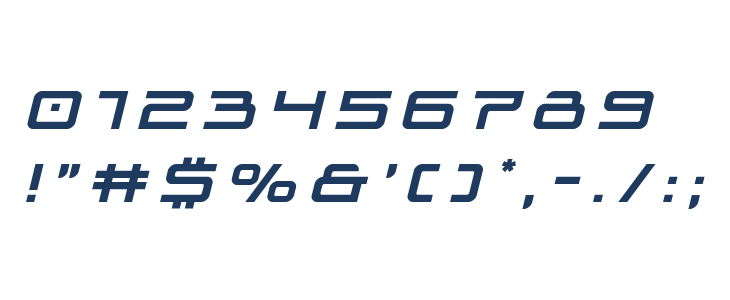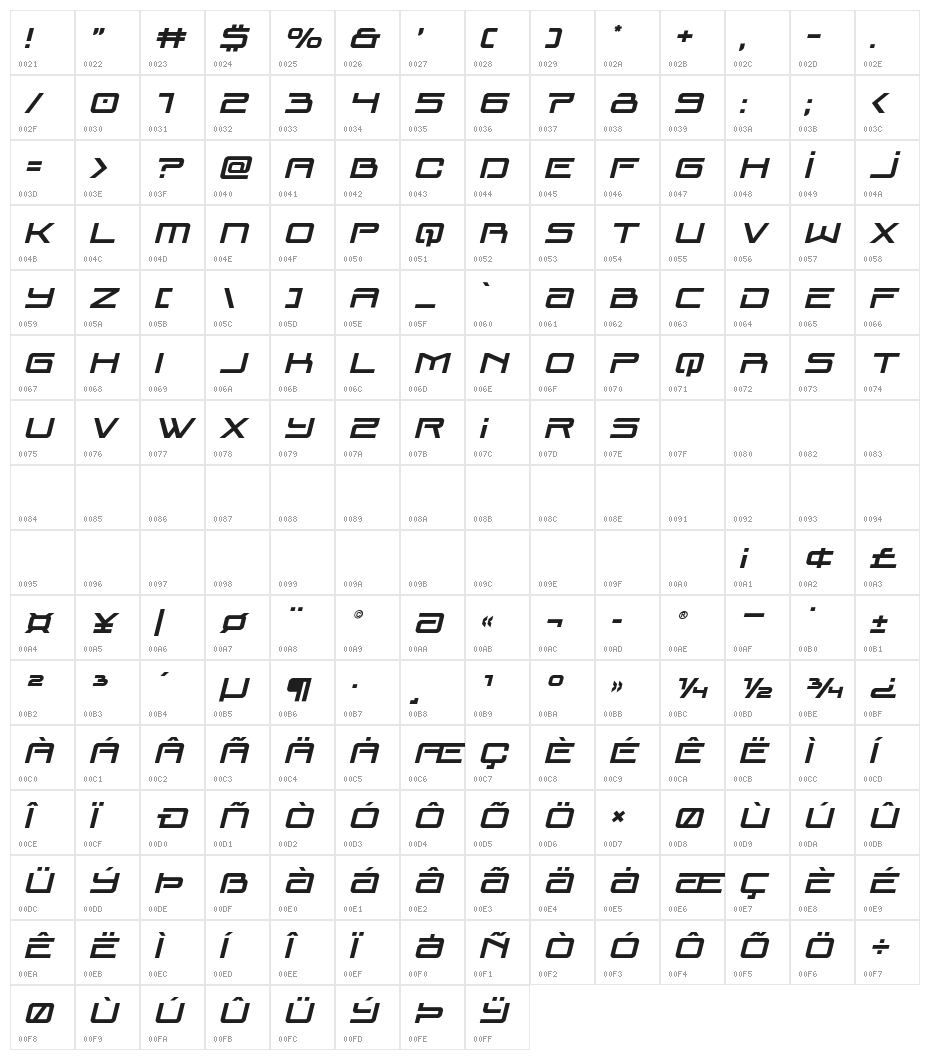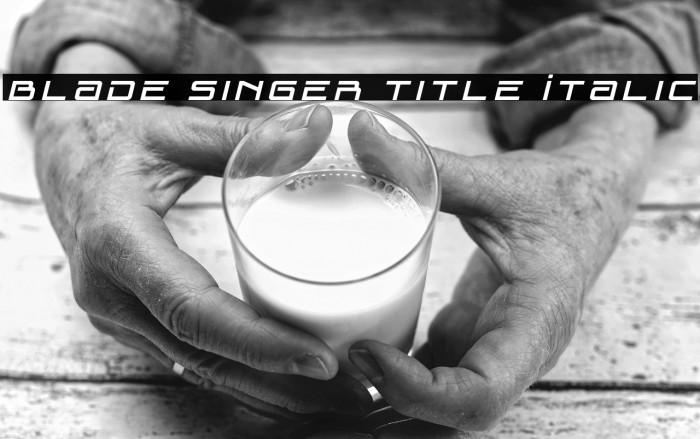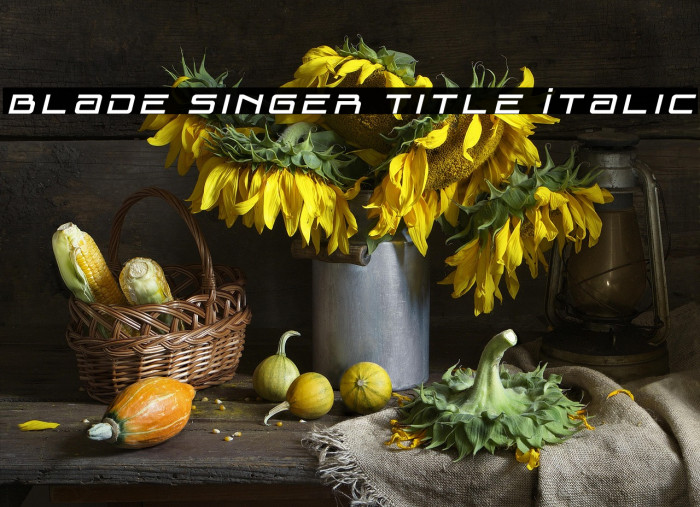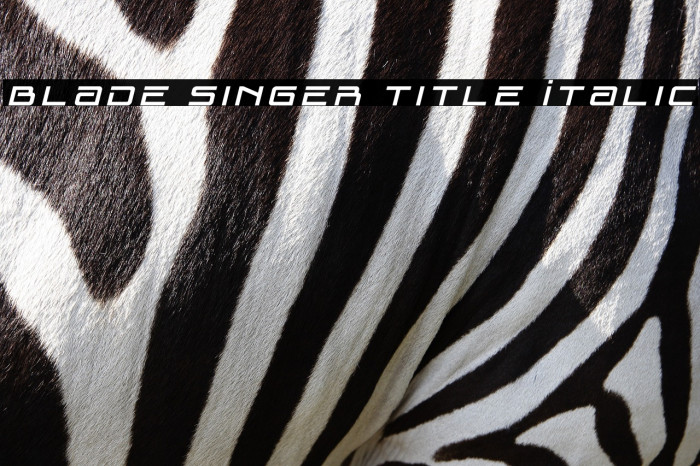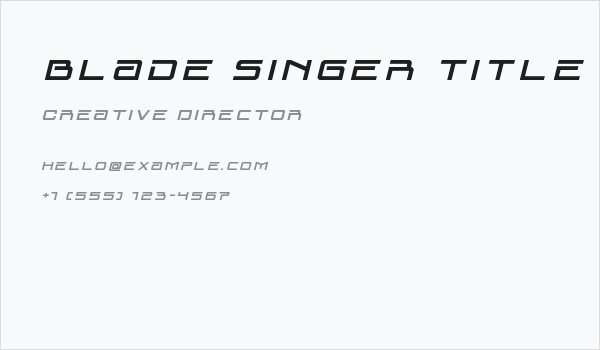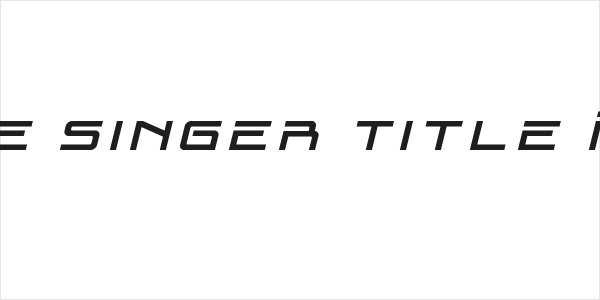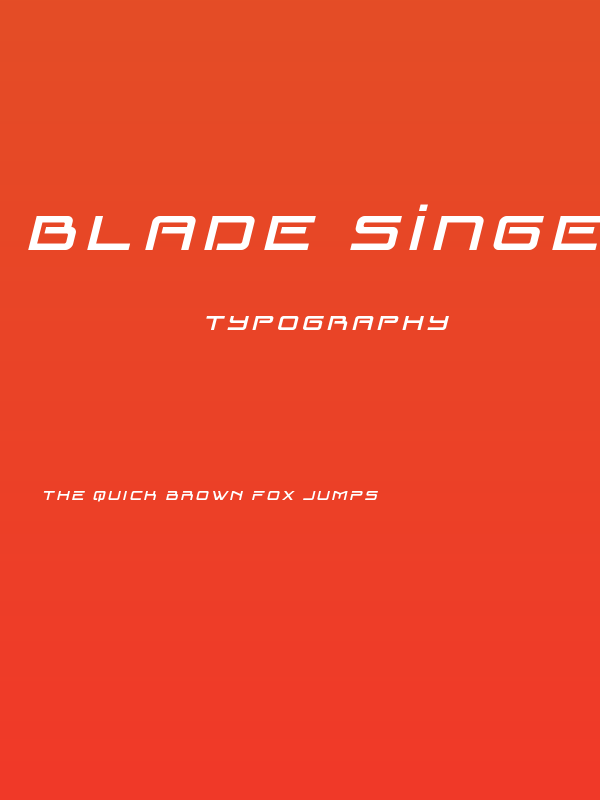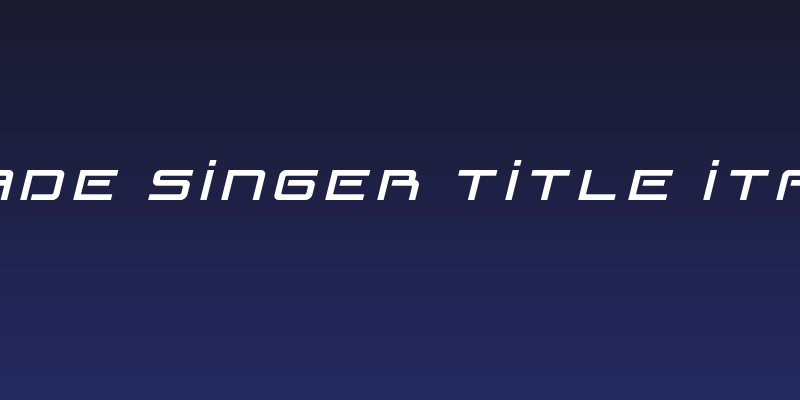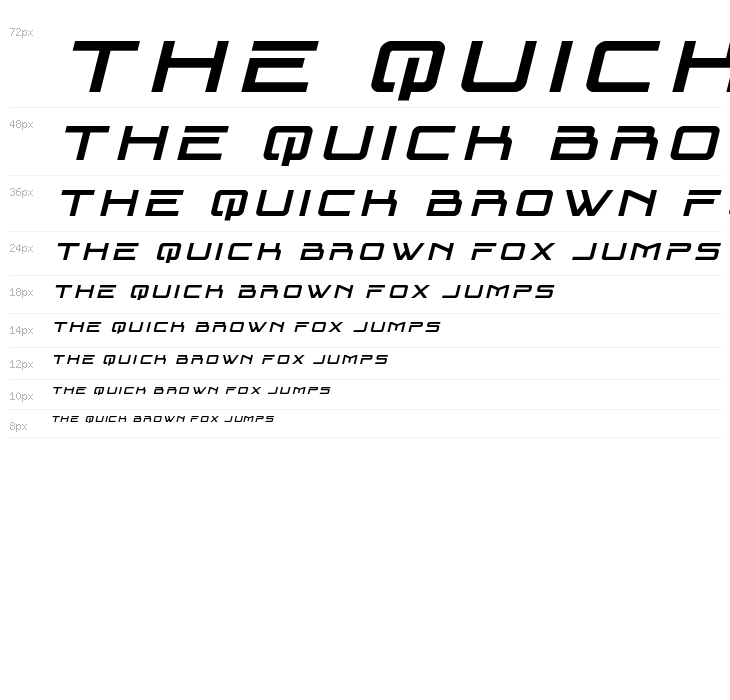
Blade Singer Title Italic Font
Blade Singer Title Italic Description
This font features a modern, angular design with a futuristic flair. The characters are slightly italicized, giving them a dynamic and forward-leaning appearance. The uppercase and lowercase letters maintain a consistent geometric style, with sharp edges and clean lines. The numerals and special characters follow the same design principles, ensuring uniformity across all glyphs. The font's overall aesthetic is sleek and contemporary, making it suitable for projects that require a cutting-edge look.
| Proposed Projects | Ideal for technology branding, sci-fi themed projects, video game titles, and modern advertising campaigns. |